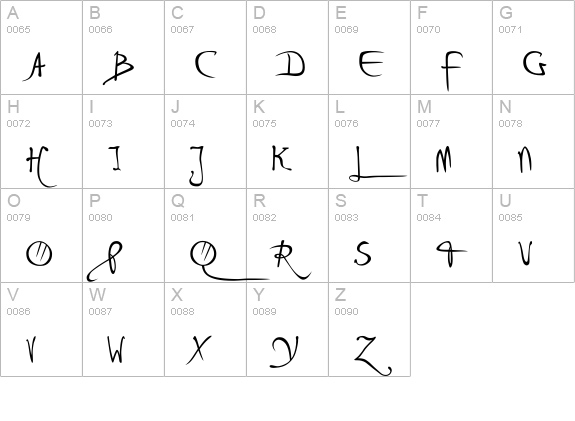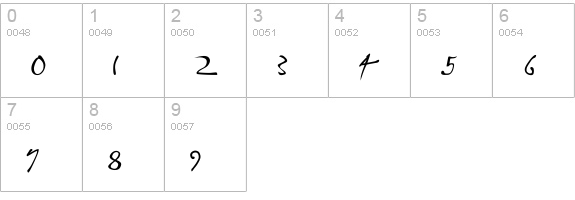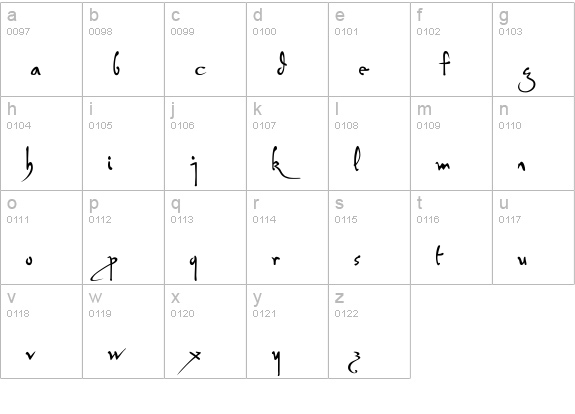
P22 DaVinci Forward Font Details
P22 DaVinci Forward is a modern and versatile font that pays homage to the legendary artist and inventor, Leonardo da Vinci. With its clean lines and elegant curves, this typeface captures the essence of Da Vinci's forward-thinking and innovative spirit. Designed with precision and attention to detail, P22 DaVinci Forward is perfect for a wide range of creative projects, from branding and logo design to editorial layouts and signage. Its sleek and sophisticated design makes it suitable for both digital and print applications. One of the most remarkable aspects of P22 DaVinci Forward is that it is freely available to download at FontsMarket.com. This means that designers and enthusiasts alike can access this exceptional font without any cost, allowing for endless possibilities and creative exploration. Whether you're a professional designer looking to add a touch of artistic flair to your work or a hobbyist who appreciates the beauty of Leonardo da Vinci's legacy, P22 DaVinci Forward is the perfect choice. Its timeless appeal and accessibility make it a must-have font for any creative endeavor. So why wait? Download P22 DaVinci Forward for free at FontsMarket.com and unlock the power of da Vinci's genius in your designs. Embrace the spirit of innovation and creativity with this remarkable font that is sure to make a lasting impression.